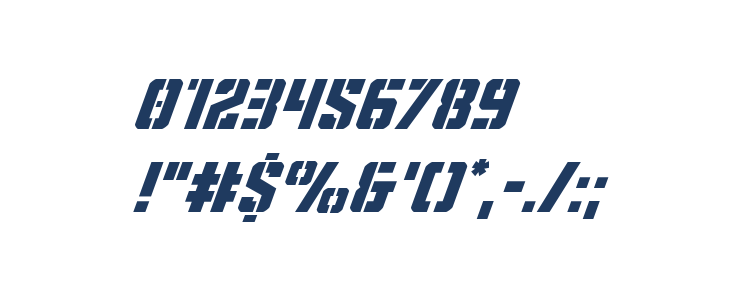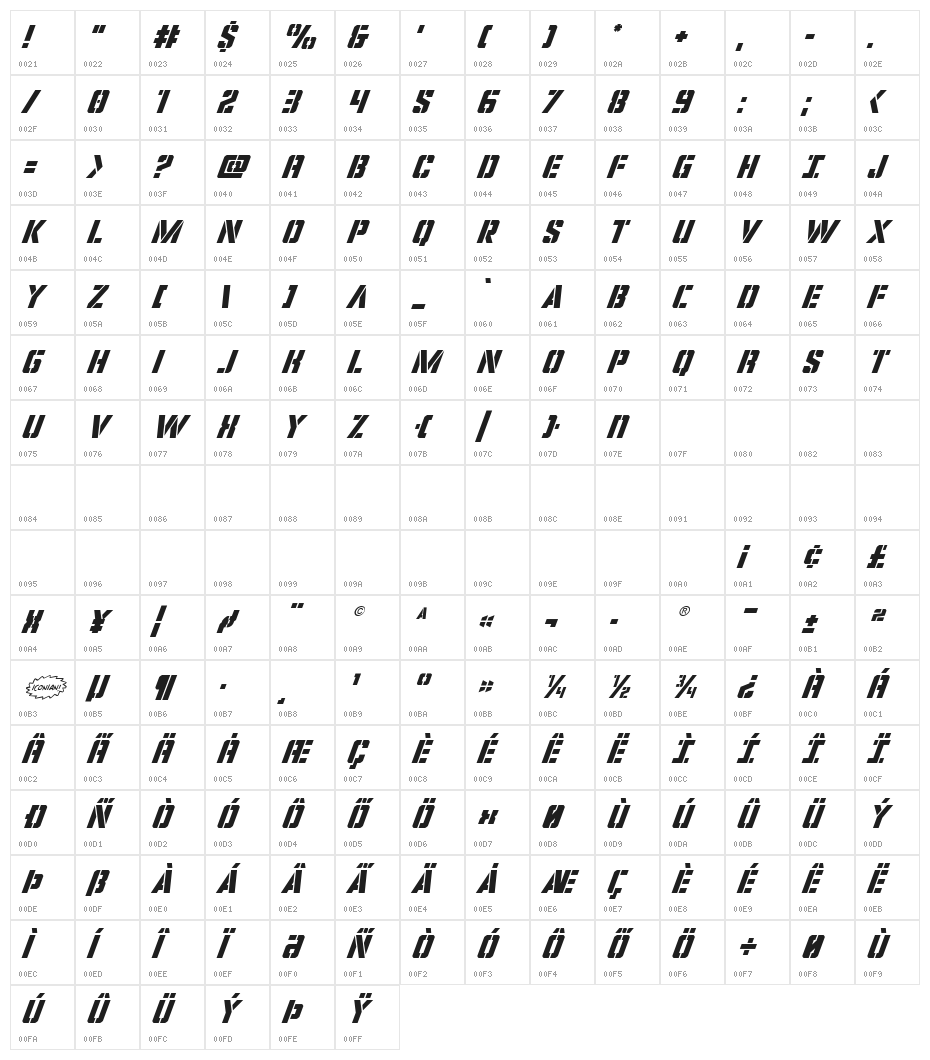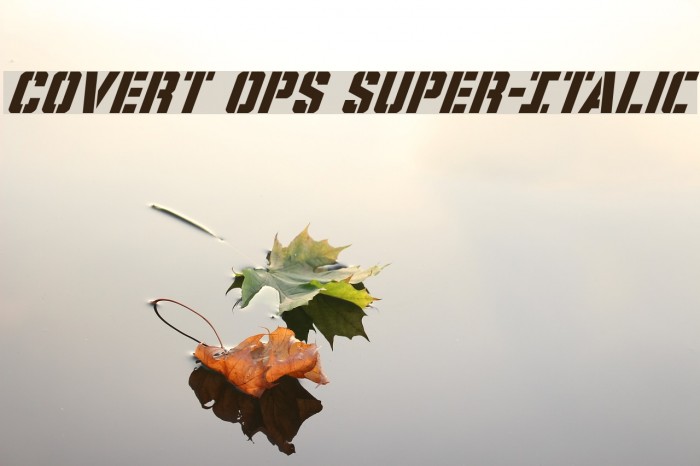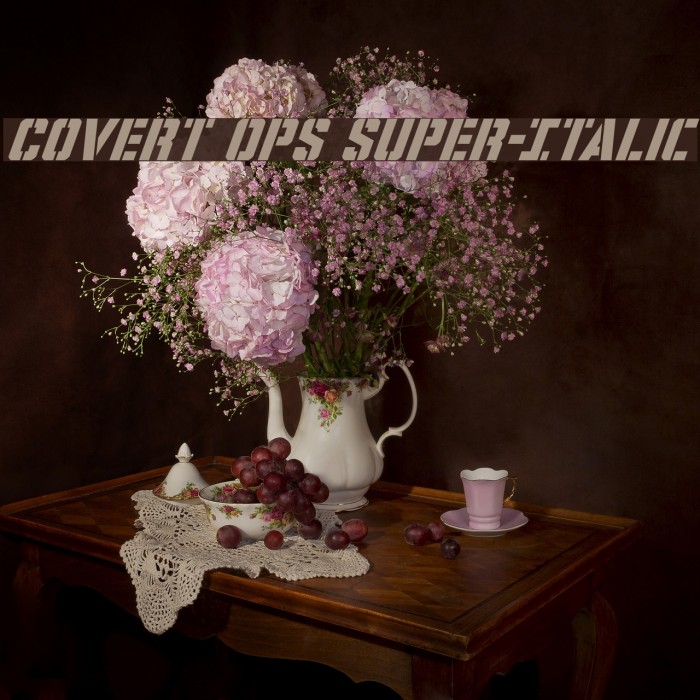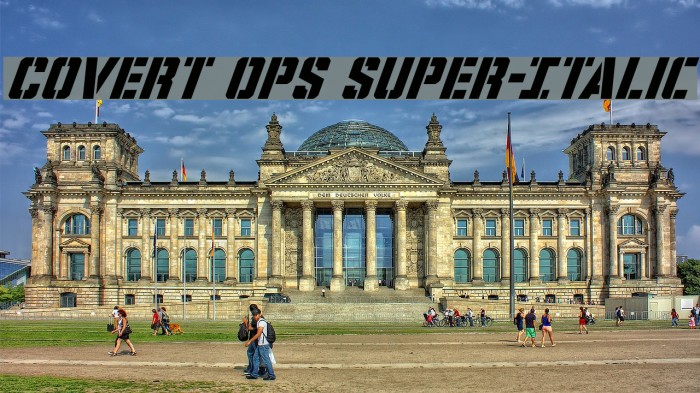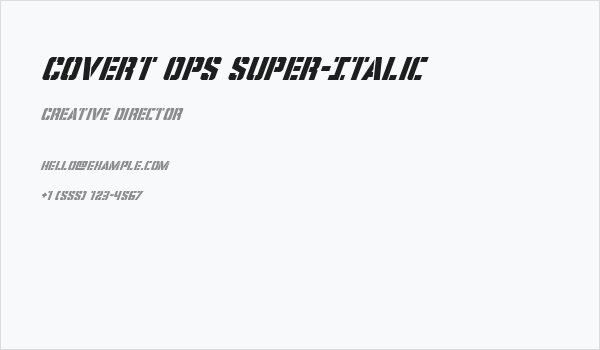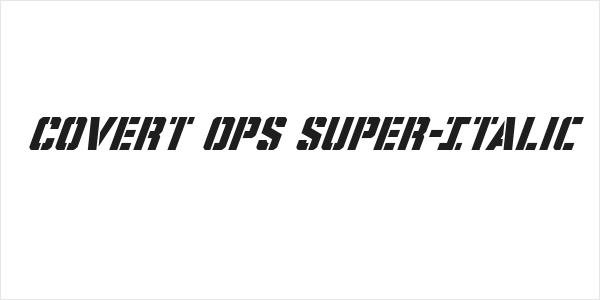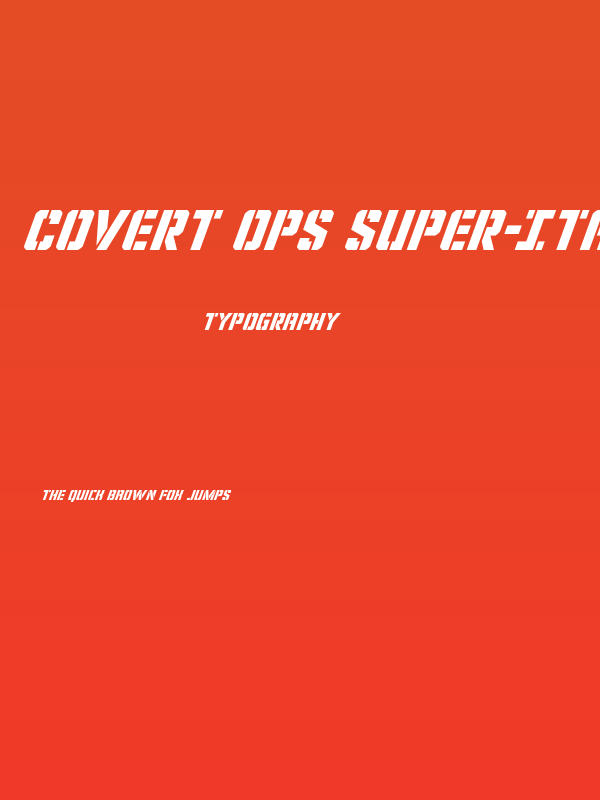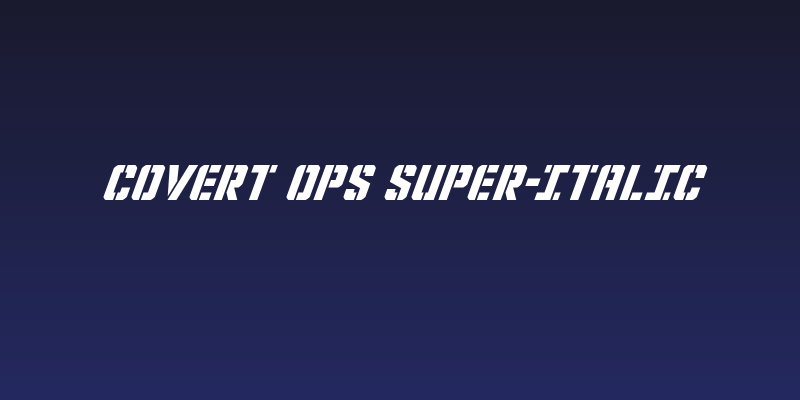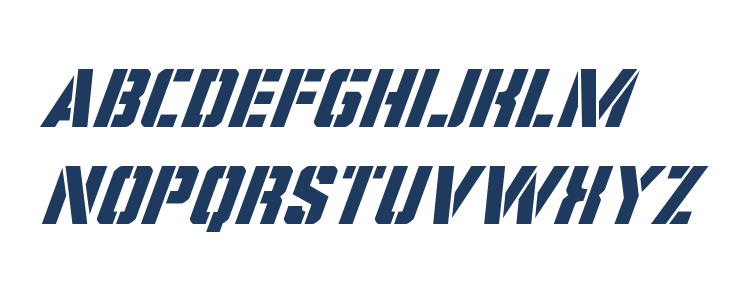
Covert Ops Super-Italic Font
Covert Ops Super-Italic Description
This font features a bold, italicized style with a strong, angular design. The characters are sharply slanted, giving a sense of speed and urgency. The strokes are thick and consistent, creating a powerful visual impact. The uppercase and lowercase letters maintain a uniform width, enhancing readability while preserving a dynamic appearance. The numbers and special characters follow the same design principles, ensuring a cohesive look across all elements. This font's aggressive and modern aesthetic makes it suitable for projects that require a strong and commanding presence.
| Proposed Projects | Ideal for action-themed posters, video game titles, sports branding, and dynamic advertising campaigns. |